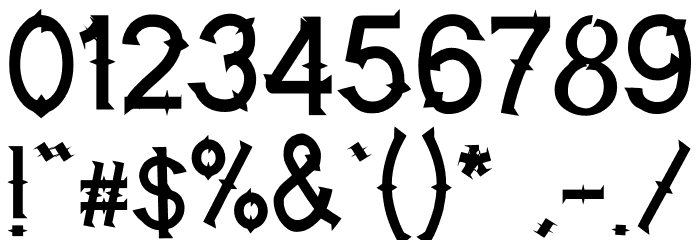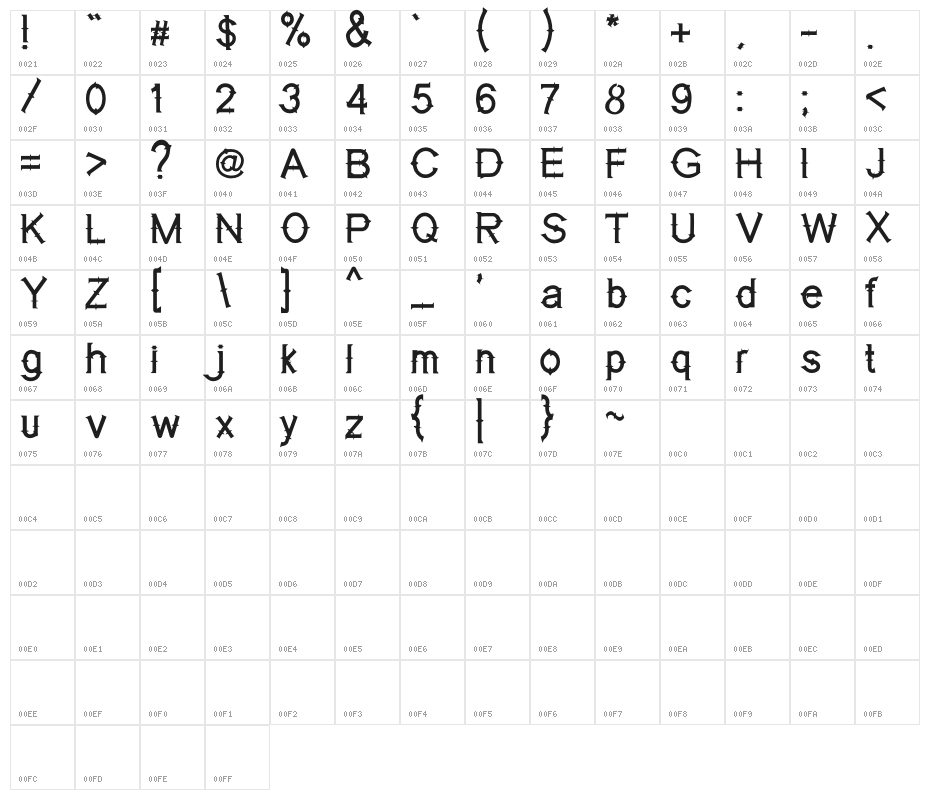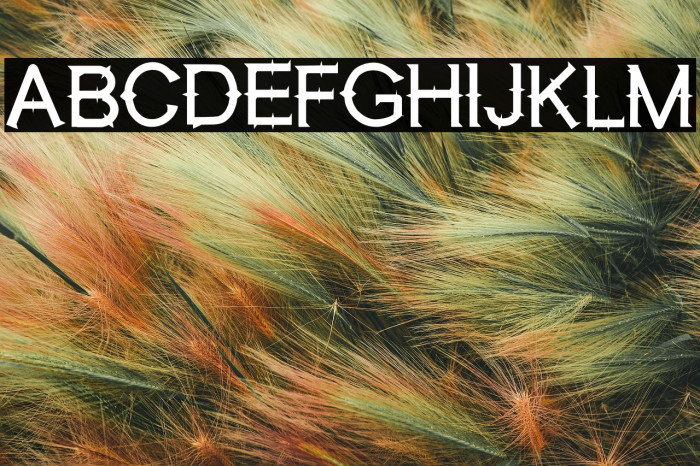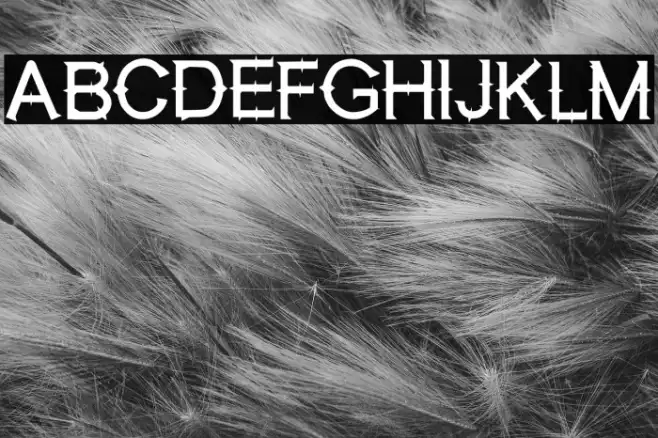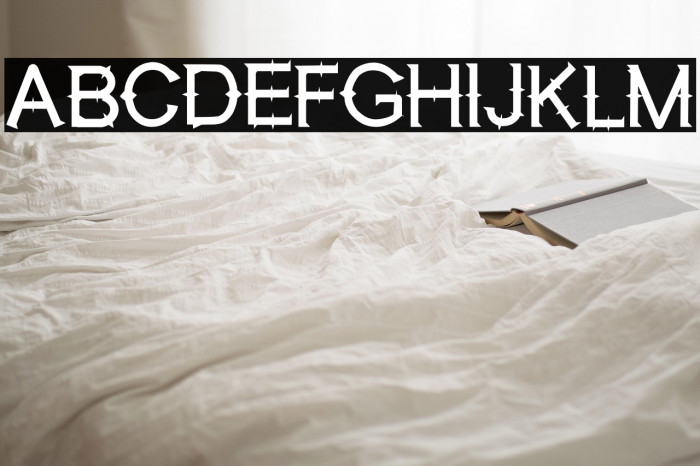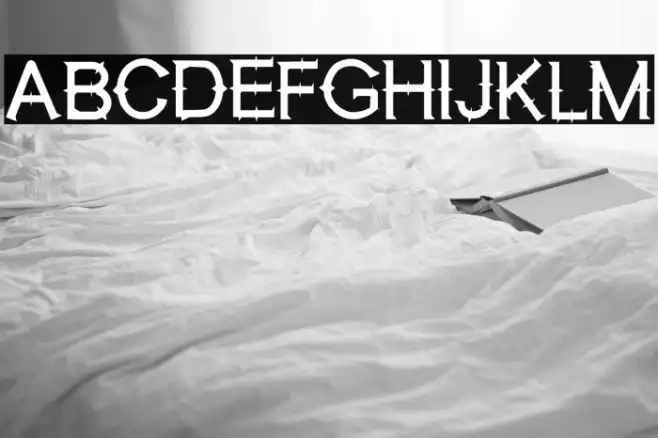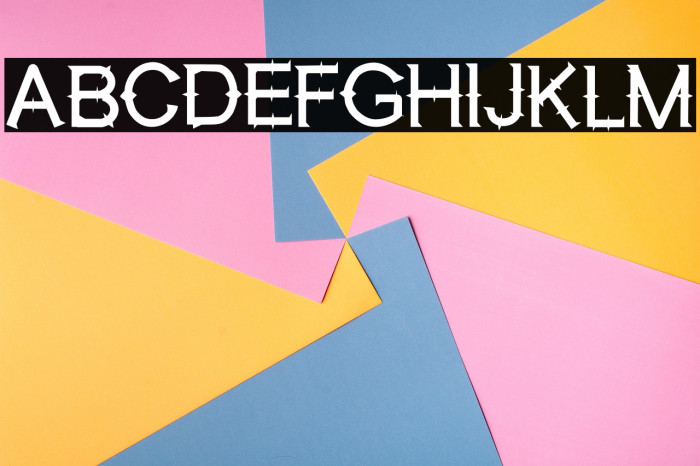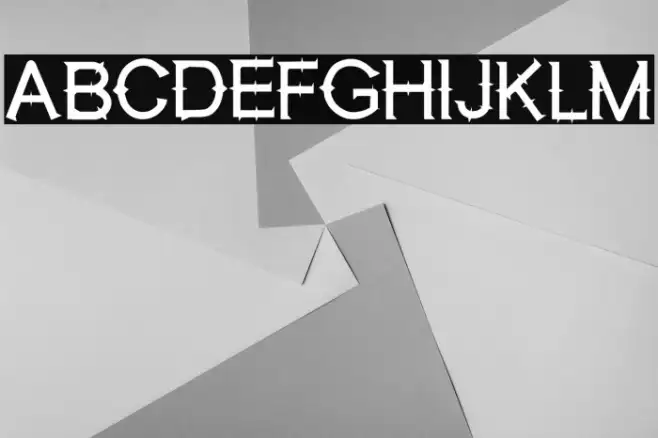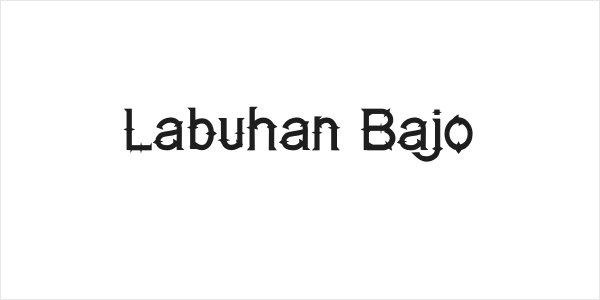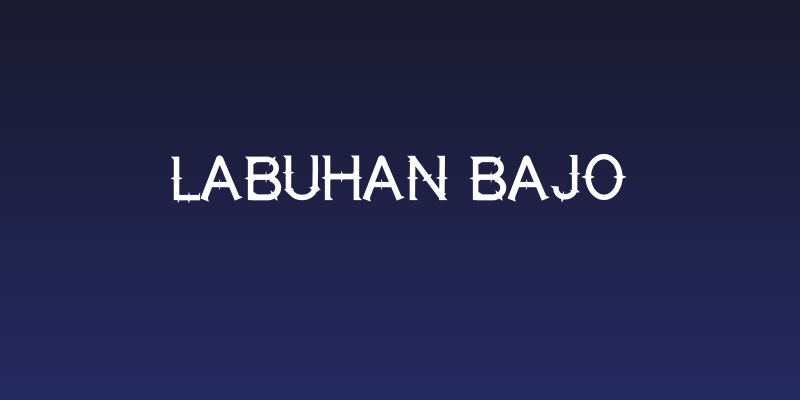
Labuhan Bajo Font
Labuhan Bajo Description
This font features a unique and edgy design, characterized by its sharp, angular elements and barbed wire-like accents. The uppercase and lowercase letters maintain a consistent style, with each character incorporating pointed edges and distinctive cuts that give it a rugged appearance. The numerals and special characters follow the same design principles, ensuring a cohesive look across all glyphs. This font's bold and striking nature makes it stand out, while its intricate details add a layer of complexity and interest.
| Proposed Projects | Ideal for projects requiring a strong, rebellious aesthetic, such as music album covers, event posters, or branding for edgy fashion lines. |